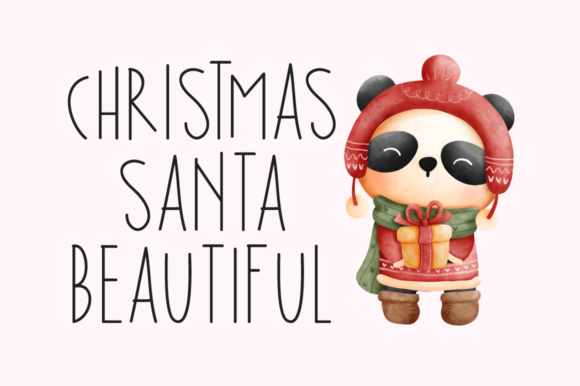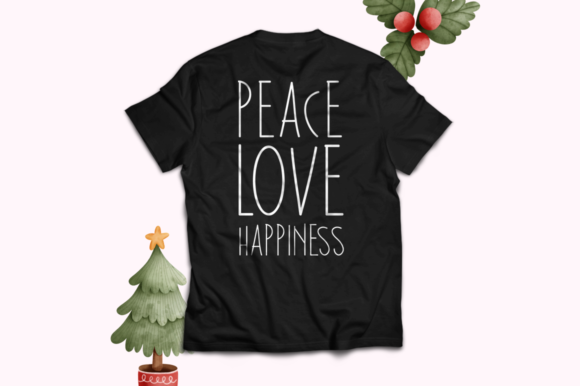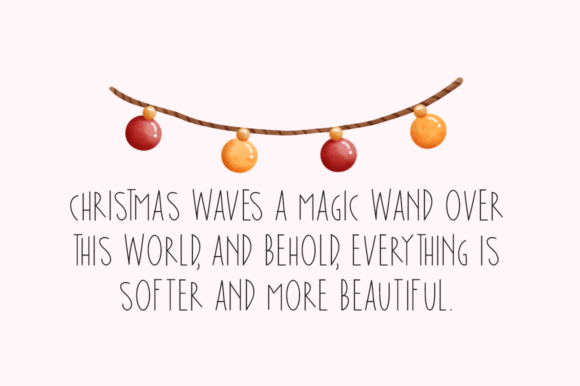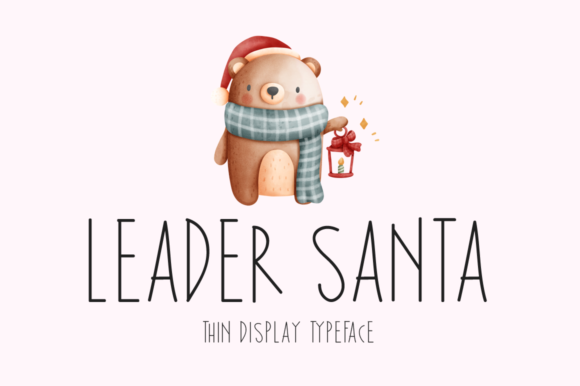
Introduction to Leader Santa Font
Leader Santa is a minimal and neat sans serif font.
Why Choose Leader Santa Font?
Leader Santa Font offers exceptional quality and versatility, making it a valuable addition to your design toolkit. Whether you’re creating for personal projects or commercial use, Leader Santa Font delivers professional results.